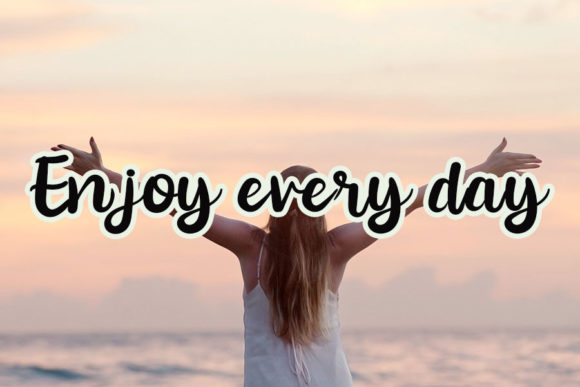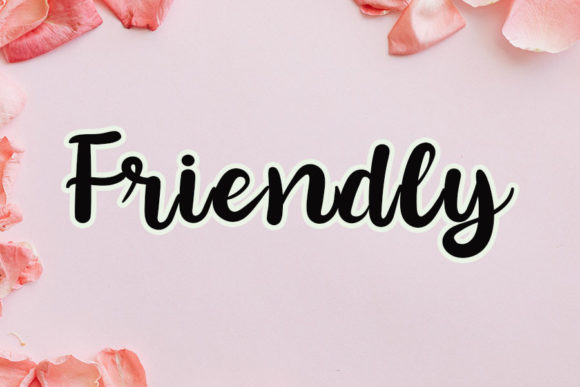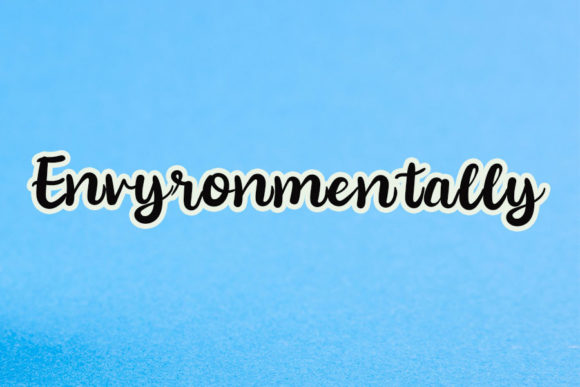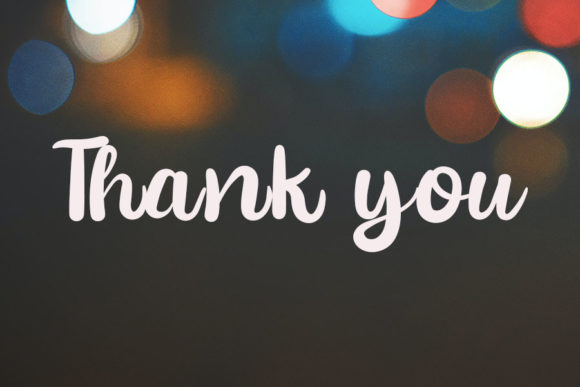
Sunny Monday Font
About Sunny Monday Font
Sunny Monday is a delicate, elegant and flowing display font. It has beautiful and well balanced characters and as a result, it matches a wide pool of designs. Add it to your most creative ideas and notice how it makes them come alive!